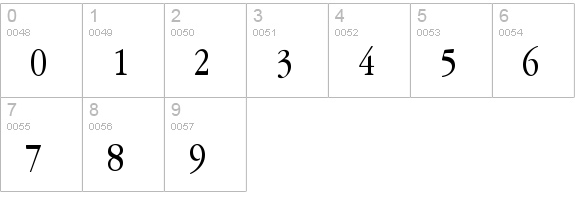
Apple Garamond Book is a comfortable, highly readable variant in the Apple typeface family \xE2\x80\x94 well suited to long-form body text, articles, and editorial content.
Apple Garamond Book is a classic and elegant serif font that exudes sophistication and professionalism. Its timeless design and graceful curves make it ideal for various design projects, from elegant invitations to professional documents. The thin strokes and subtle serifs give it a refined and polished look that is sure to impress. What sets Apple Garamond Book apart is that it is not only a premium font, but it is also freely available to download at FontsMarket.com. This means that you can enjoy the beauty and versatility of this font without any cost involved. Whether you are a designer looking for a versatile typeface or someone wanting to elevate their projects with a touch of class, Apple Garamond Book is the perfect choice. Download it today and add a touch of sophistication to your designs.